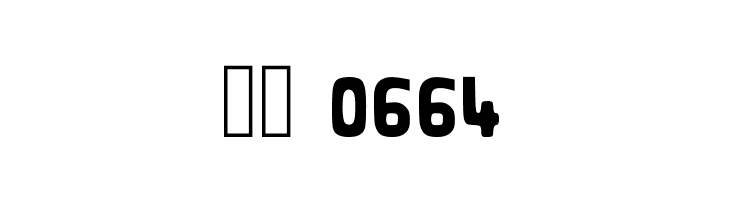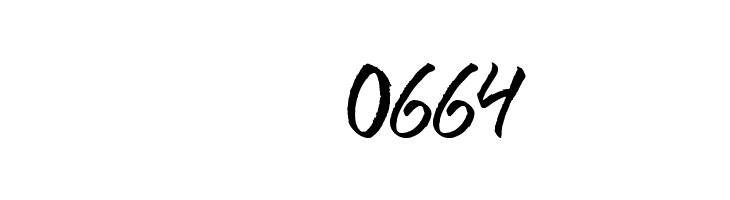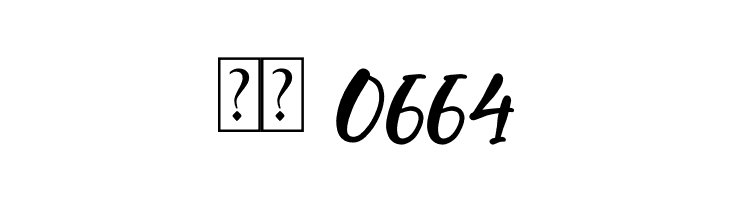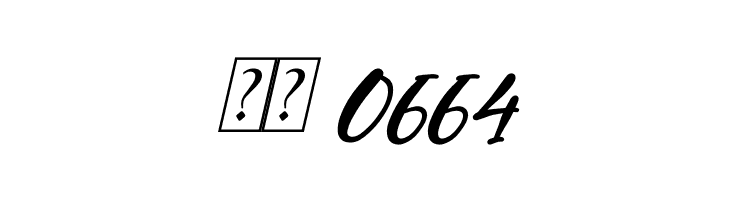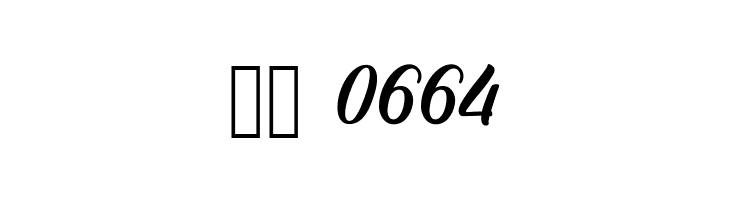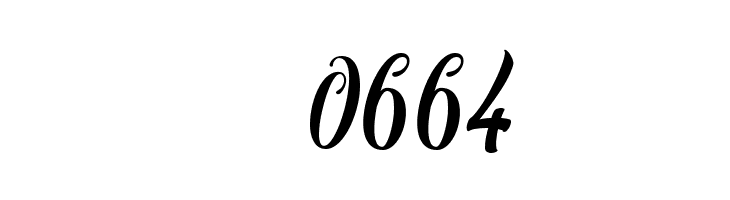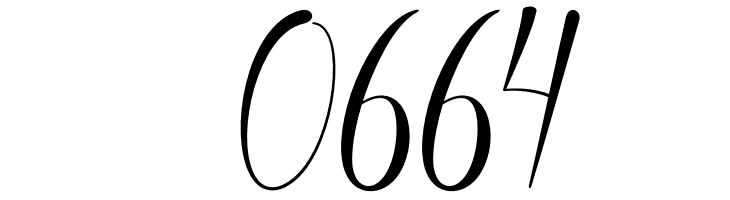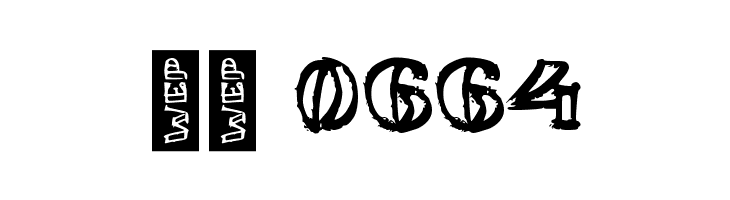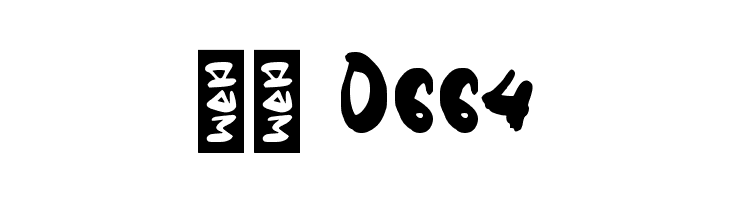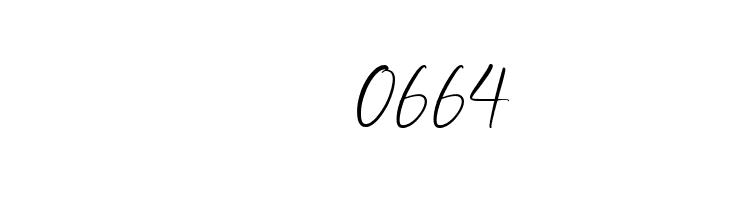
• bare knuckle fight
A bold, geometric font with angular shapes and thick strokes, ideal for headlines.
• Bare Knucle Fight
A bold, rounded font with a modern and playful style.
• Bare Marker Bold
A bold, playful font with a hand-drawn marker style.
• Bare Marker Light
A casual, handwritten-style font with smooth, flowing strokes and a dynamic slant.
• Bare Marker Regular
A bold, handwritten font with a marker-like appearance and smooth, rounded characters.
• Bare Riddim Regular
A bold, geometric font with a modern and edgy style.
• Barecy FREE
A bold, playful handwritten font with thick strokes and a casual style.
• BarecyFREE
A bold, playful handwritten font with thick strokes and a casual style.
• Barefoot
A bold, hand-painted style font with expressive, irregular strokes.
• Barefoot Regular
A bold, decorative font with a three-dimensional effect and condensed style.
• barefootbluejeannight
A playful, whimsical font combining script and sans-serif elements.
• Bareken
A dynamic and elegant script font with flowing, interconnected letterforms.
• Bareken
A dynamic, cursive script font with elegant curves and decorative flourishes.
• Barela Regular
A bold, handwritten font with a playful and energetic style.
• barely
A playful and elegant script font with flowing, cursive letterforms.
• Barely Manilow
• Barely_Handwritten
A playful, bold handwritten font with a casual and friendly style.
• Barelyn
An elegant script font with flowing, cursive letters and artistic flair.
• Baremila
A fluid, cursive script font with a natural handwritten style.
• Baremila
A cursive, handwritten font with elegant, flowing strokes and dynamic contrast.
• BareMinimum